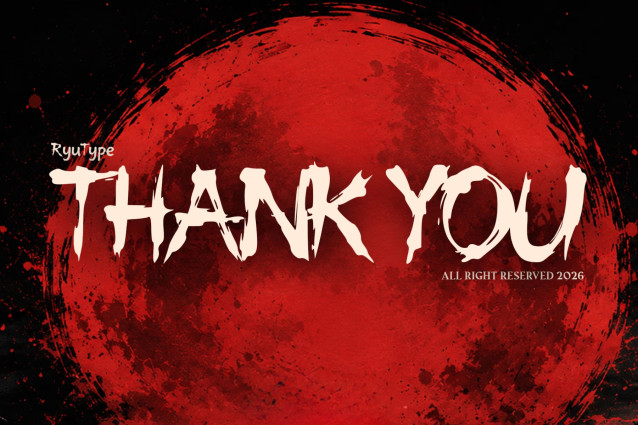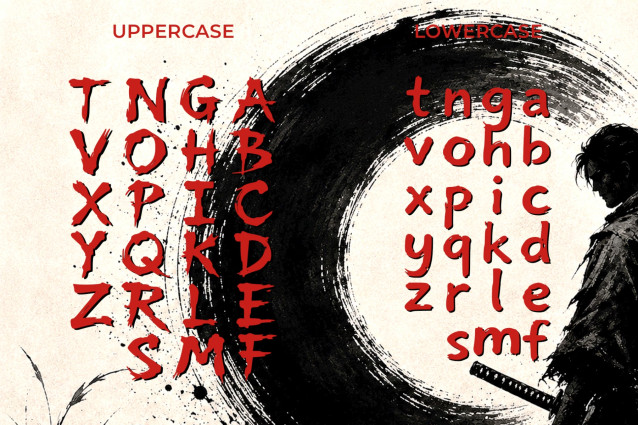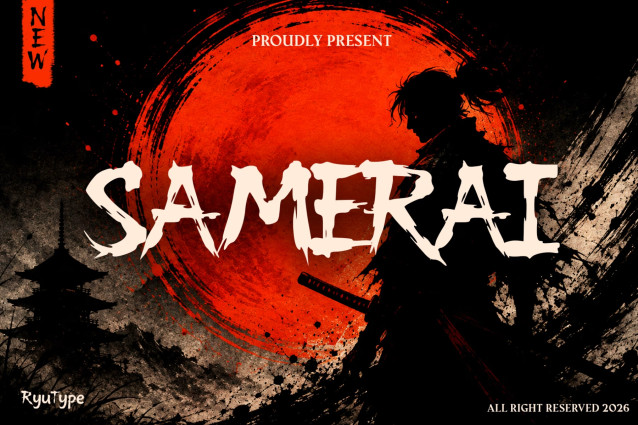
SAMERAI DISPLAY FONT
SAMERAI is a bold and expressive display type inspired by Japanese samurai culture and rough brush lettering. It features irregular hand-painted strokes, sharp pointed edges, dramatic tapered ends, and raw ink textures — perfect for posters, streetwear, tattoo designs, album covers, movie titles, and Japanese-inspired branding projects.